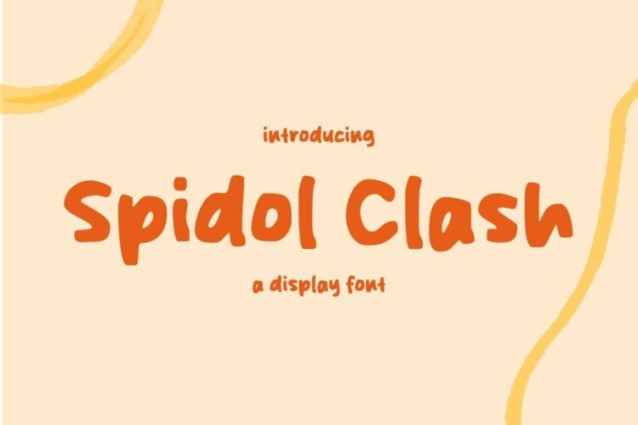
Spidol Clash Font
Spidol Clash Font is a simple and modern display font suitable for quotes, logos, headings, titles, and many more. Use it on any of your creative projects, and your designs will become outstanding!